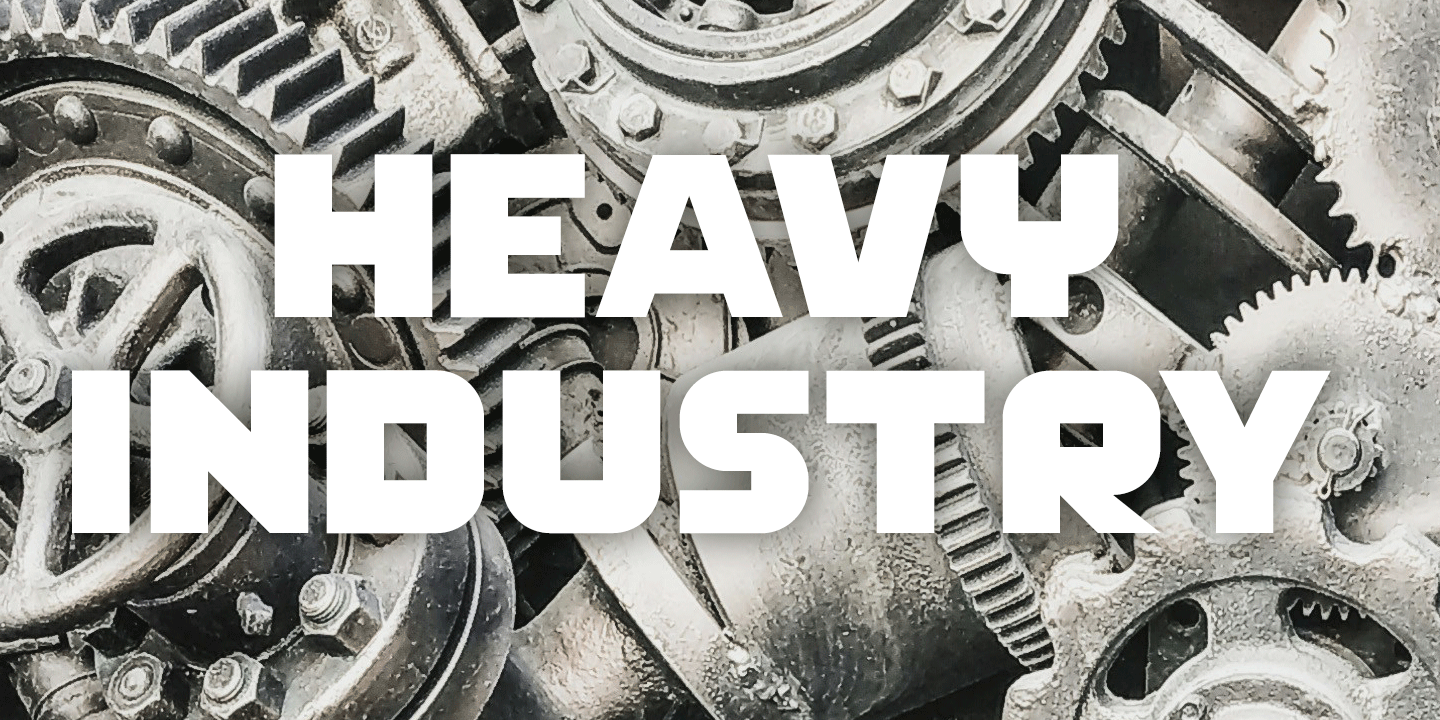
Industry Machine
3 Font Family by Fenotype
Industry Machine is a compact, geometric sans serif with a bold industrial attitude. Its blocky construction, squared forms, rounded corners, and stencil-like detailing give it a futuristic, machine-built look that feels both sturdy and graphic.
With Regular, Semibold, and Bold styles included, this family gives you a useful range for display-driven work. The strong condensed proportions and high-contrast, inline-inspired character make it a natural fit for posters, branding, packaging, signage, apparel graphics, and other headline applications that need a tough, modern voice.
Designed by Fenotype, this three-style family brings together techno sharpness and modular structure in a way that feels controlled, heavy, and distinctive without losing clarity.